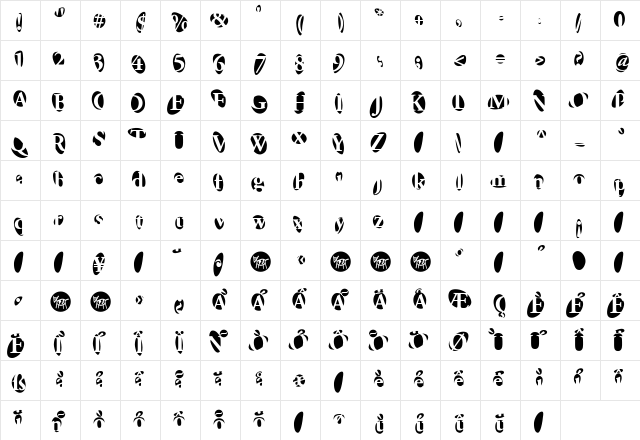
F2FProvinciali Regular
Design Context for F2FProvinciali Typeface
F2FProvinciali is a composed and adaptable typeface that performs quietly and consistently across a wide range of design contexts.